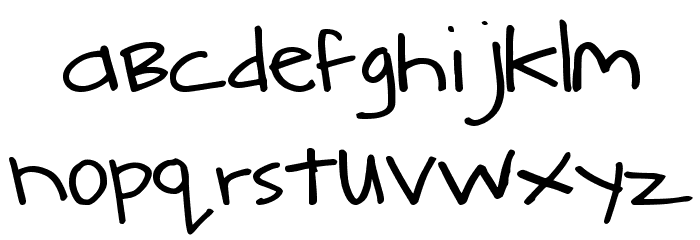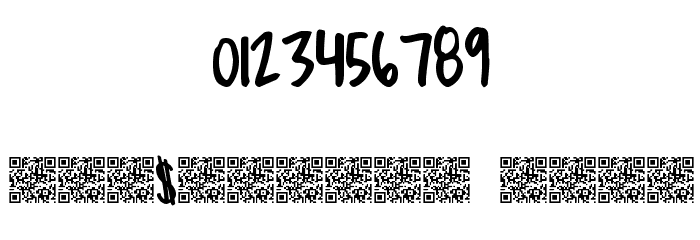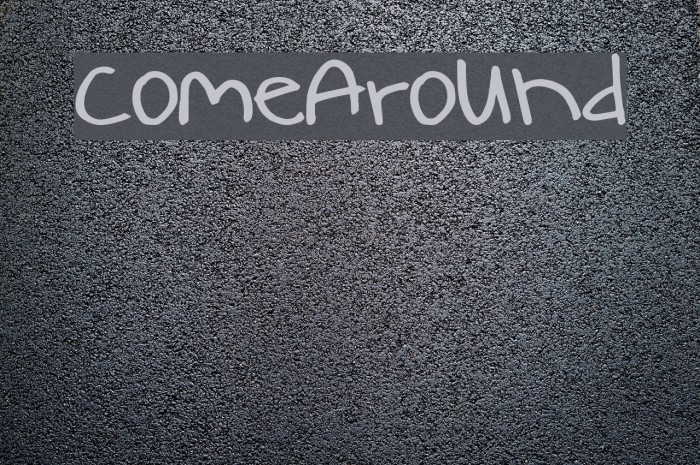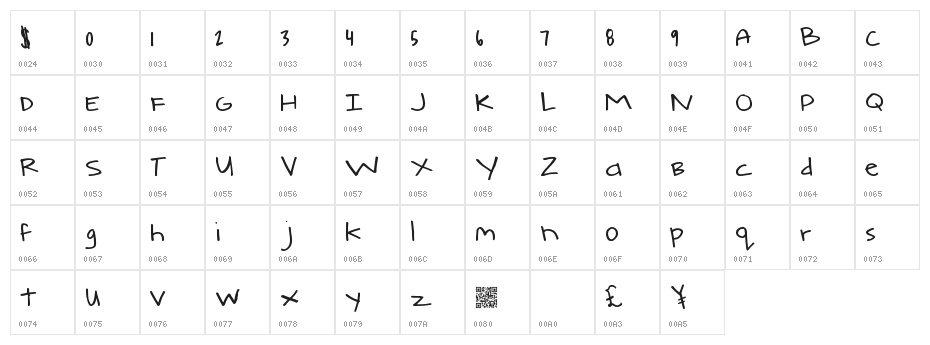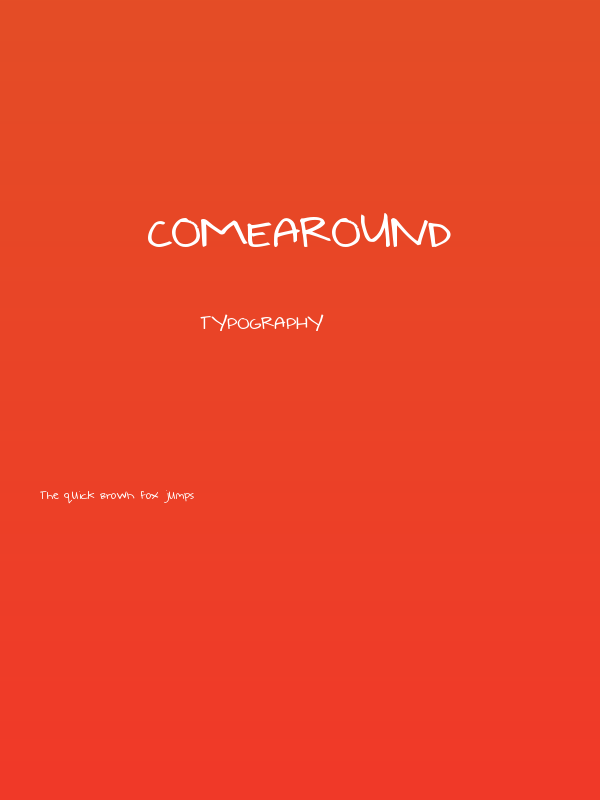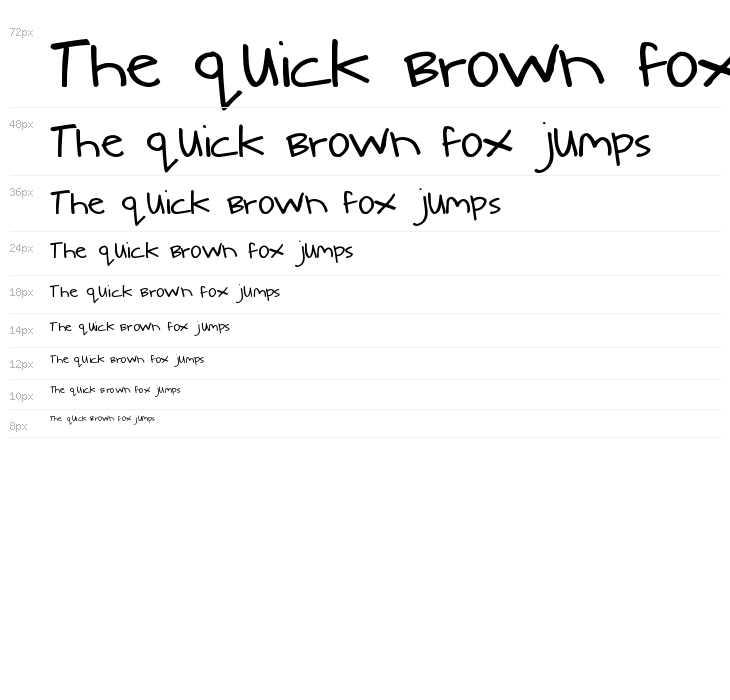
ComeAround Font
This font features a playful and casual handwritten style, characterized by its irregular and slightly slanted letterforms. The strokes are smooth and flowing, giving it a relaxed and informal appearance. The uppercase and lowercase letters maintain a consistent style, with a slight variation in size and shape that adds to its charm. The numerals are clear and legible, matching the overall aesthetic of the font. Special characters are included, maintaining the same whimsical style. This font is perfect for projects that require a personal and approachable touch.
A playful, casual handwritten font with smooth, flowing strokes.
- Proposed Projects: Ideal for greeting cards, children's books, personal blogs, and informal branding.
- Overall Style: Casual
- Use Case: Headlines, Logos, Informal Text